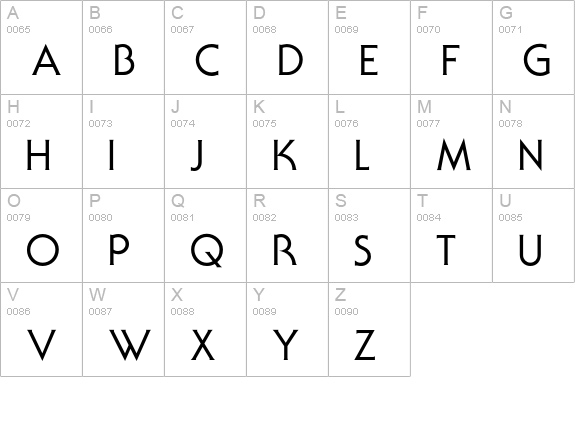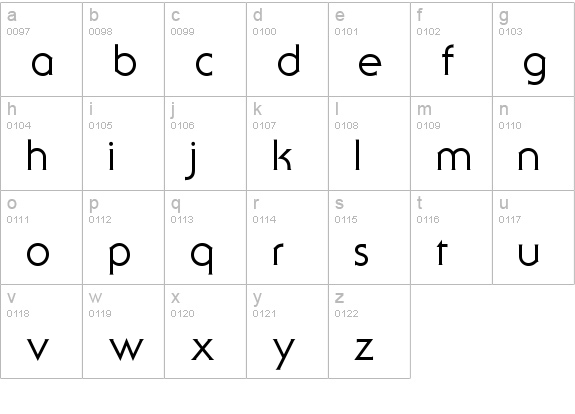
SerifGothicRegular Font Details
SerifGothicRegular font is a visually striking and versatile typeface that combines the elegance of a serif font with the boldness of a gothic style. It features clean lines, sharp edges, and a distinct balance between thick and thin strokes, making it a perfect choice for various design projects. This font exudes a sense of sophistication and professionalism, making it ideal for both print and digital applications. Whether you are designing a logo, creating a poster, or working on a website, SerifGothicRegular font will add a touch of refinement to your designs. One of the best things about SerifGothicRegular font is that it is available for free. You can easily download it from FontsMarket.com, a trusted source for high-quality fonts. With the freedom to use this amazing font without any cost, you can bring your creative visions to life without breaking the bank. With its timeless appeal and versatility, SerifGothicRegular font is sure to become a go-to choice for designers and creatives alike. Its clean and bold design will captivate your audience and make a lasting impression. So why wait? Take advantage of the opportunity to download this font for free and elevate your design projects to new heights.